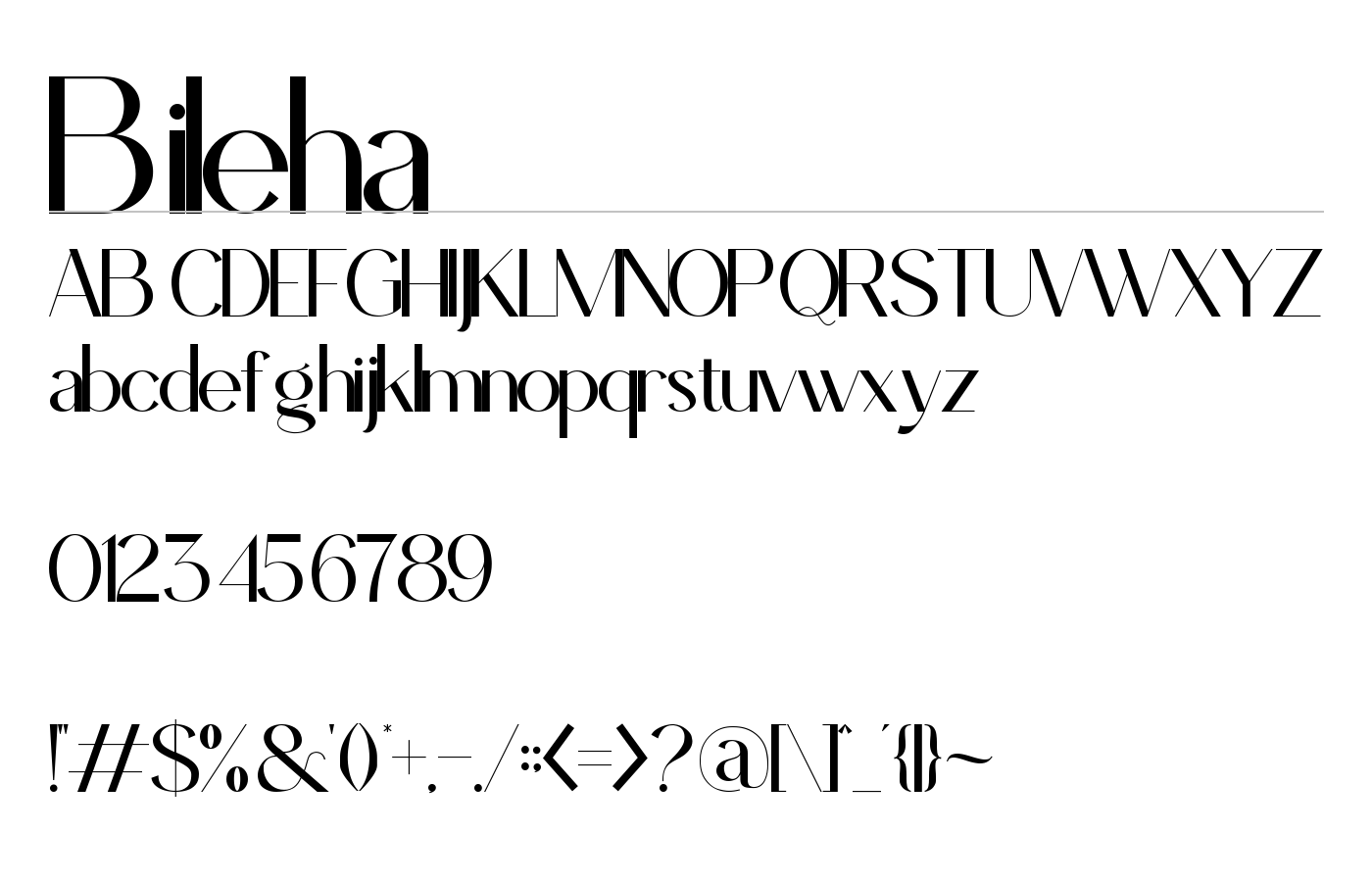
Bileha is an elegant serif font with a modern Didone style characterized by high contrast between thick and thin strokes and delicate, thin serifs. Its tall, narrow letterforms and refined details give it a sophisticated and luxurious feel, making it ideal for fashion branding, editorial headlines, and upscale packaging. This font shines in designs that require a stylish and contemporary look with a touch of classic elegance.
Bileha Font
About Bileha Font